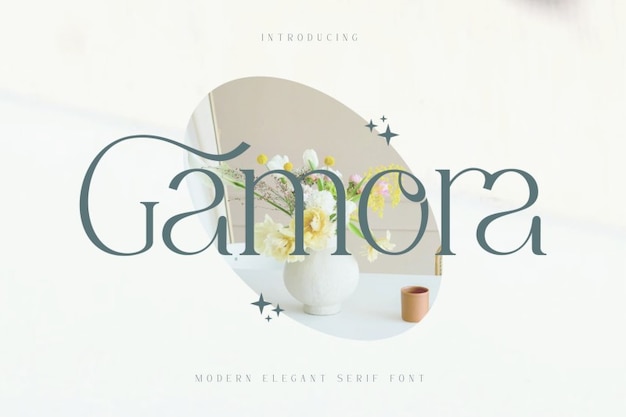
Gamora Font
"Gamora" font embodies modern elegance with a classic twist. Its sleek and graceful design exudes sophistication, making it perfect for upscale projects. With timeless charm, "Gamora" adds a touch of refinement to any text, whether it's branding, invitations, or editorial work. This font seamlessly combines classic beauty with contemporary flair, ensuring a timeless appeal.